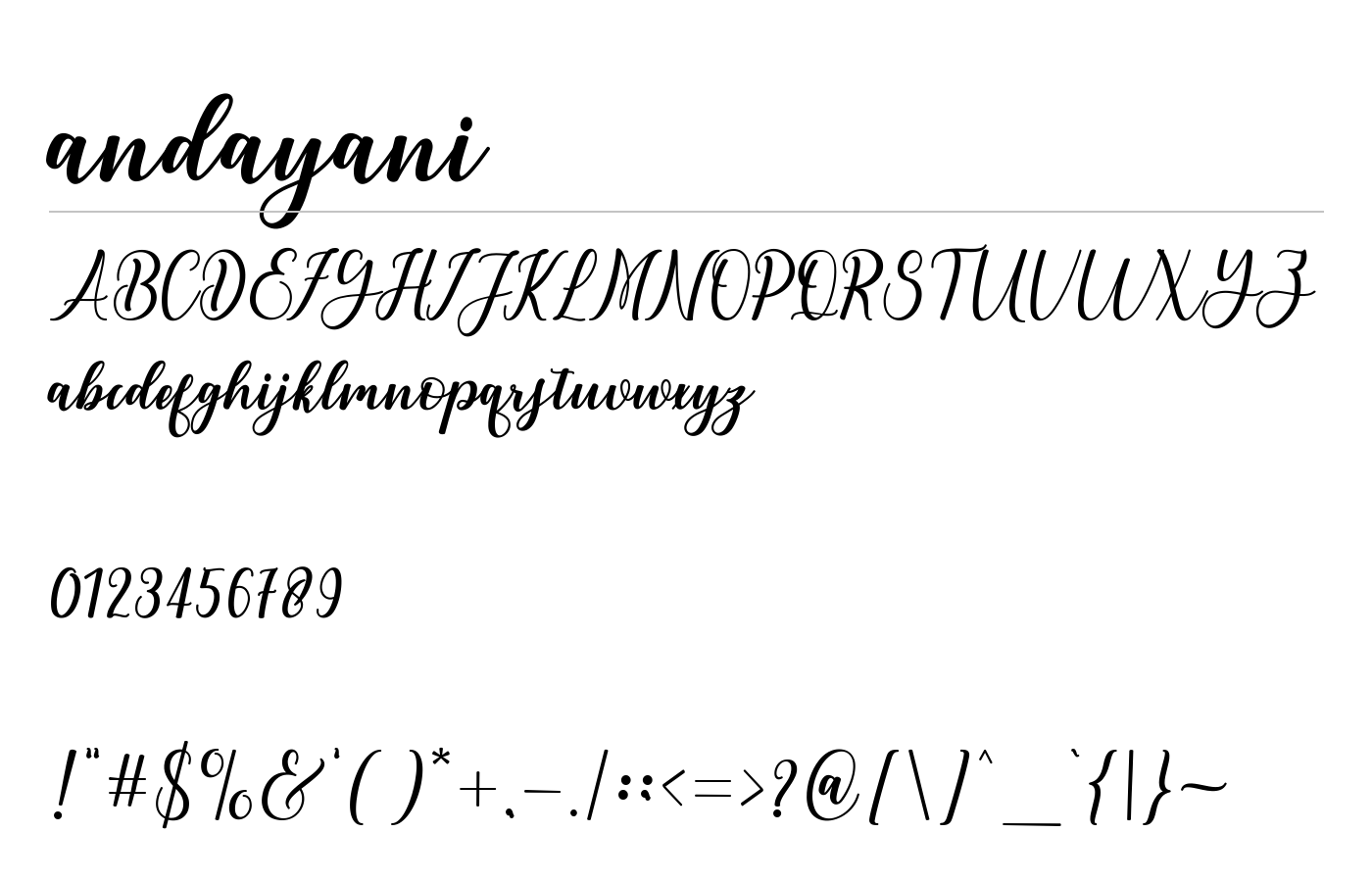
Andayani is an elegant script font with a smooth, flowing style that combines both uppercase and lowercase letters in a graceful, handwritten manner. Its medium weight and moderate contrast give it a refined yet approachable look, perfect for creating a luxurious and personal touch in branding, invitations, and stylish editorial designs. This font works well where a sophisticated and charming atmosphere is desired, making it ideal for fashion, beauty, and creative projects.
andayani Font
About andayani Font
| Font family | andayani Font |
| Designer | Syahputra/Bexxtype |